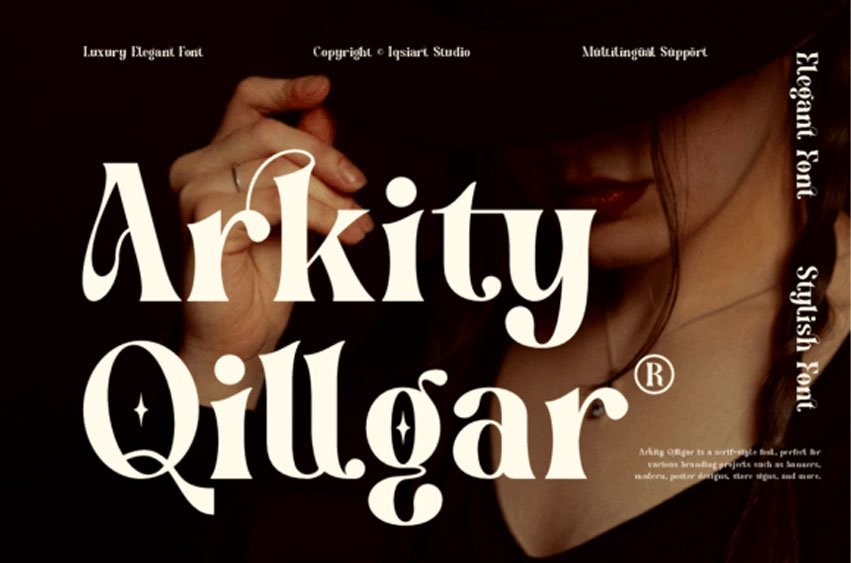
Arkity Qillgar Font is a serif and authentic display typeface that suits a variety of design needs.
This font is here to enhance the quality of your designs.